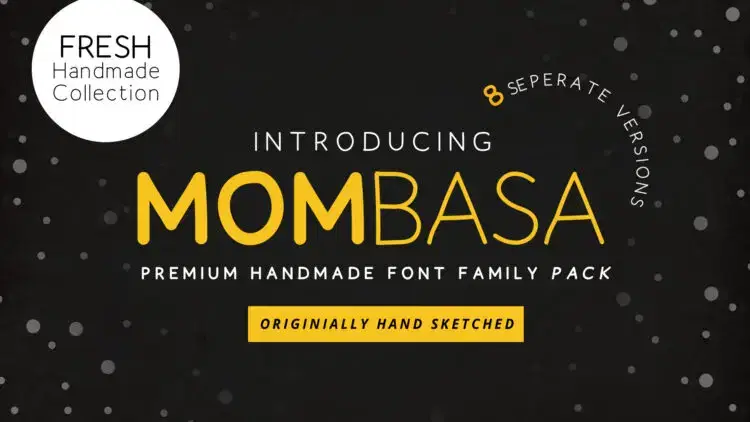
Mombasa Hand Drawn Font Family Pack
Here we are introducing Mombasa the hand-drawn font family pack with 8 separate versions of Mombasa font family.
Mombasa is a hand-drawn sans serif font which can be useful to create bold lettering titles and headlines in combination with its light and the regular version. You can create presentation text with the use of Mombasa bold sans serif font and its abstract carved lines get the beauty when it is used to create printable items headlines.
Mombasa font family come with the following versions :
- Mombasa Light
- Mombasa Light Italic
- Mombasa Regular
- Mombasa Regular Italic
- Mombasa Bold
- Mombasa Bold Italic
- Mombasa Black
- Mombasa Black Italic
Font Features :
Mombasa comes with
- A – Z capital letters
- a – z small letters
- Numbers & Punctuations as well.